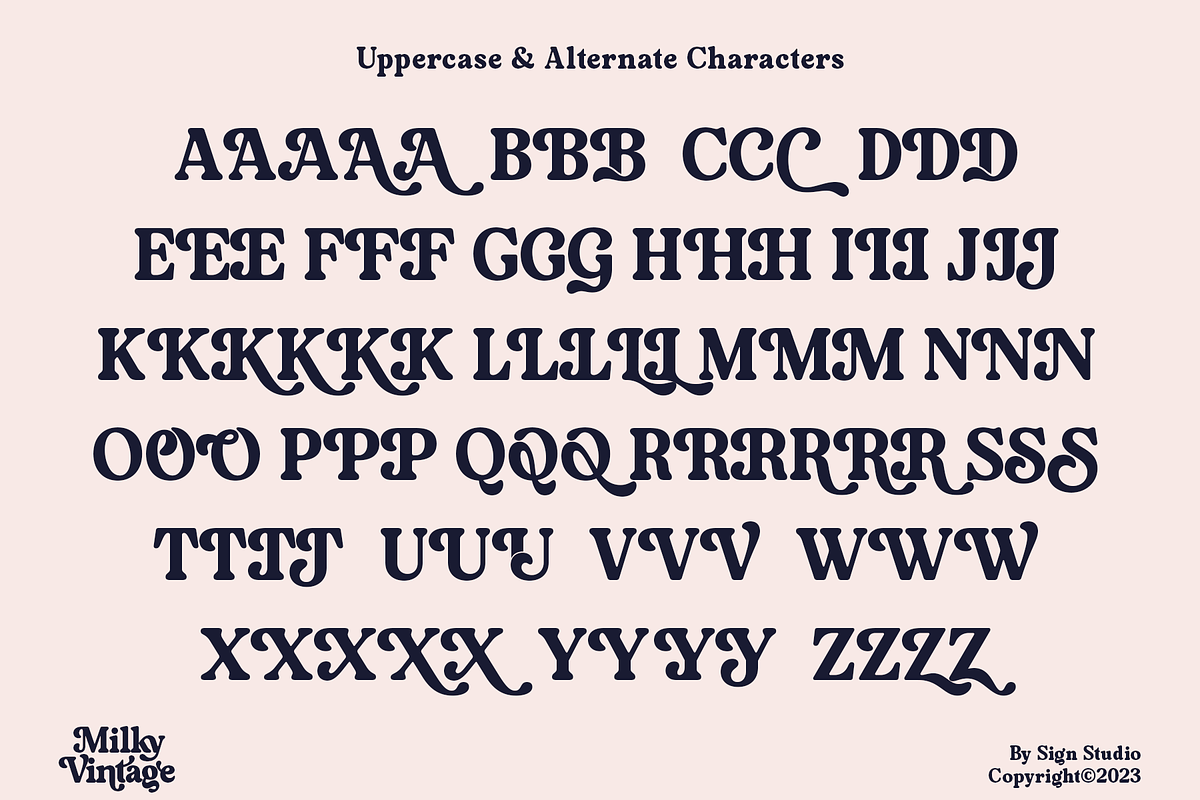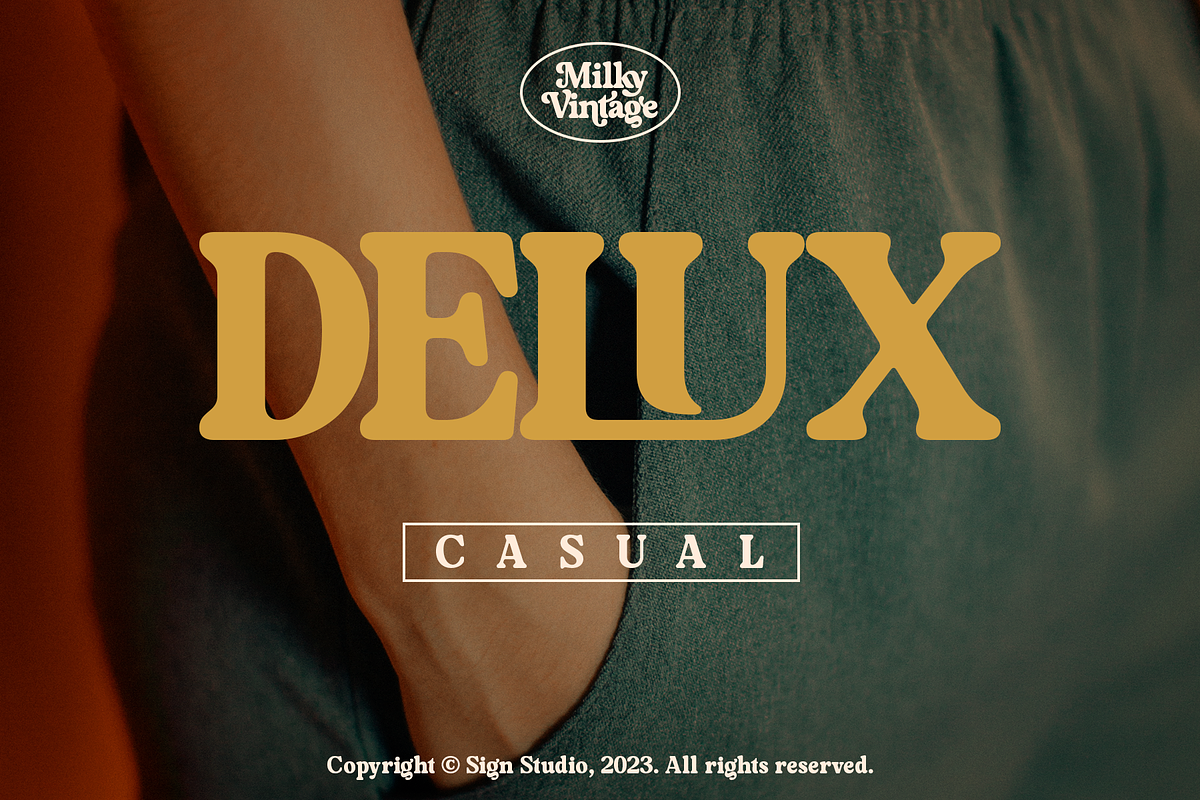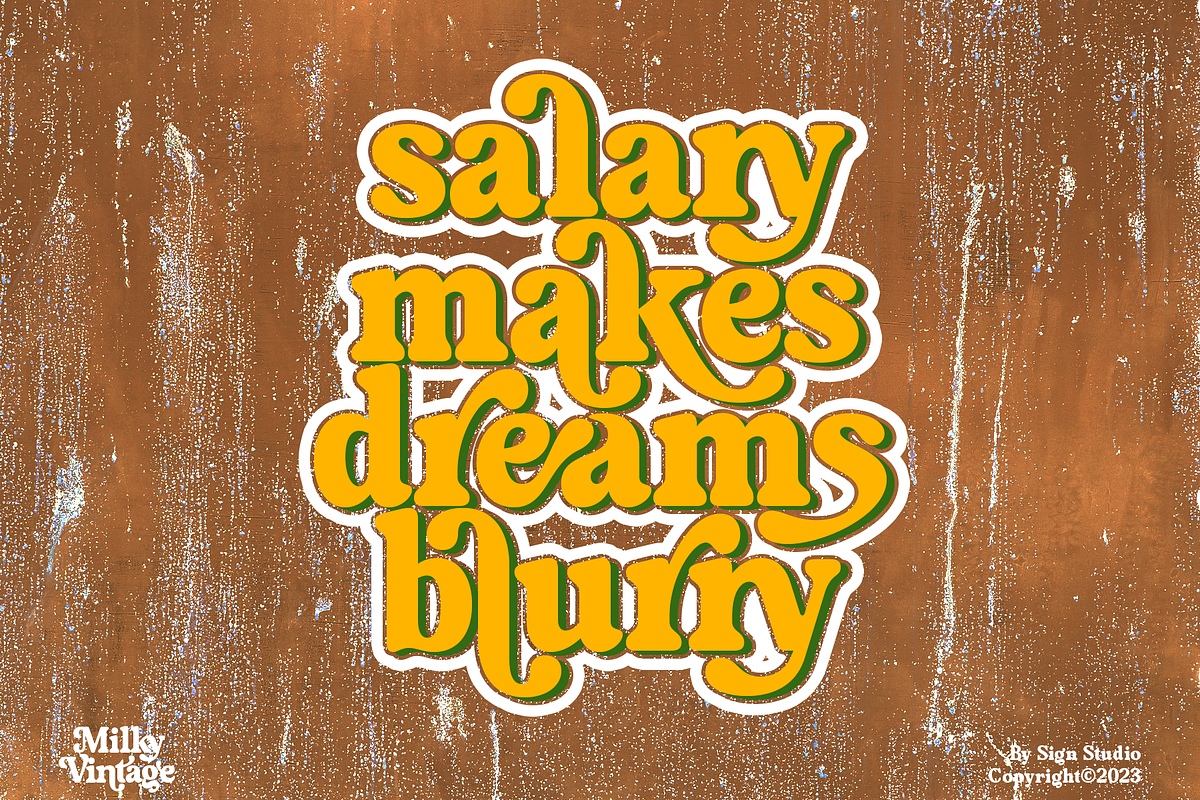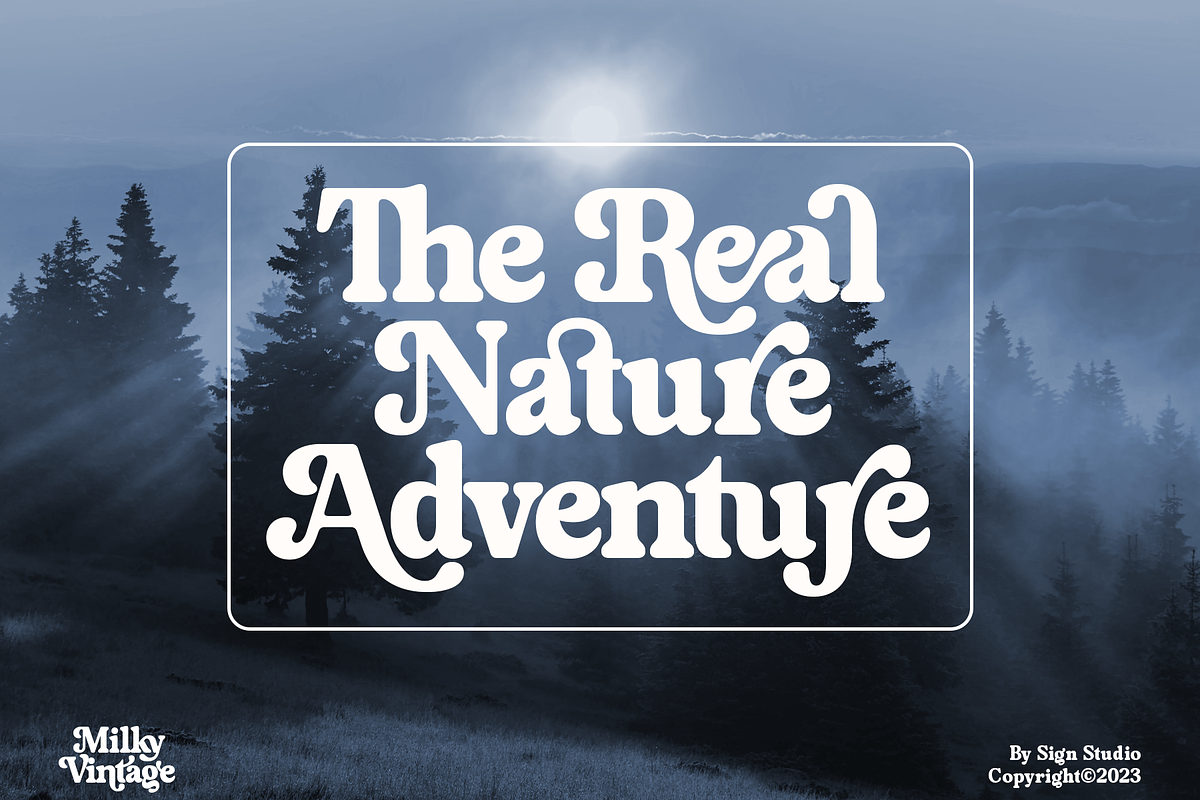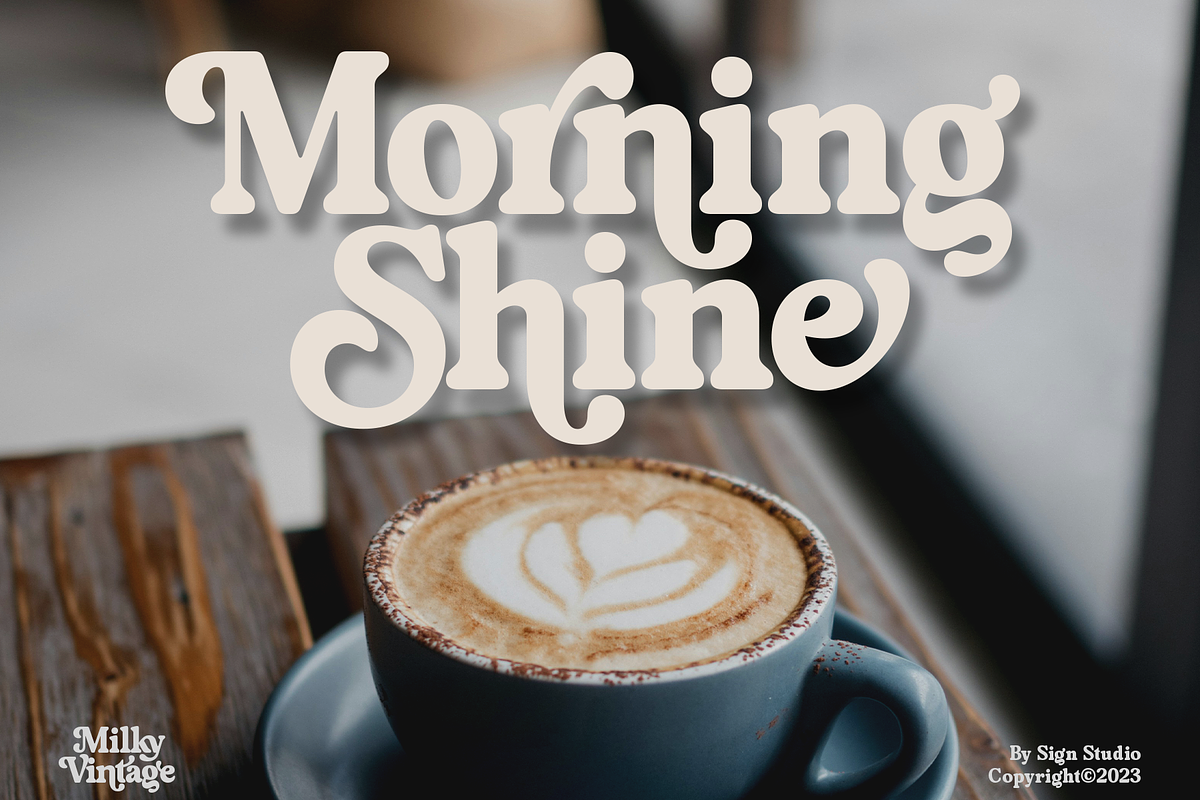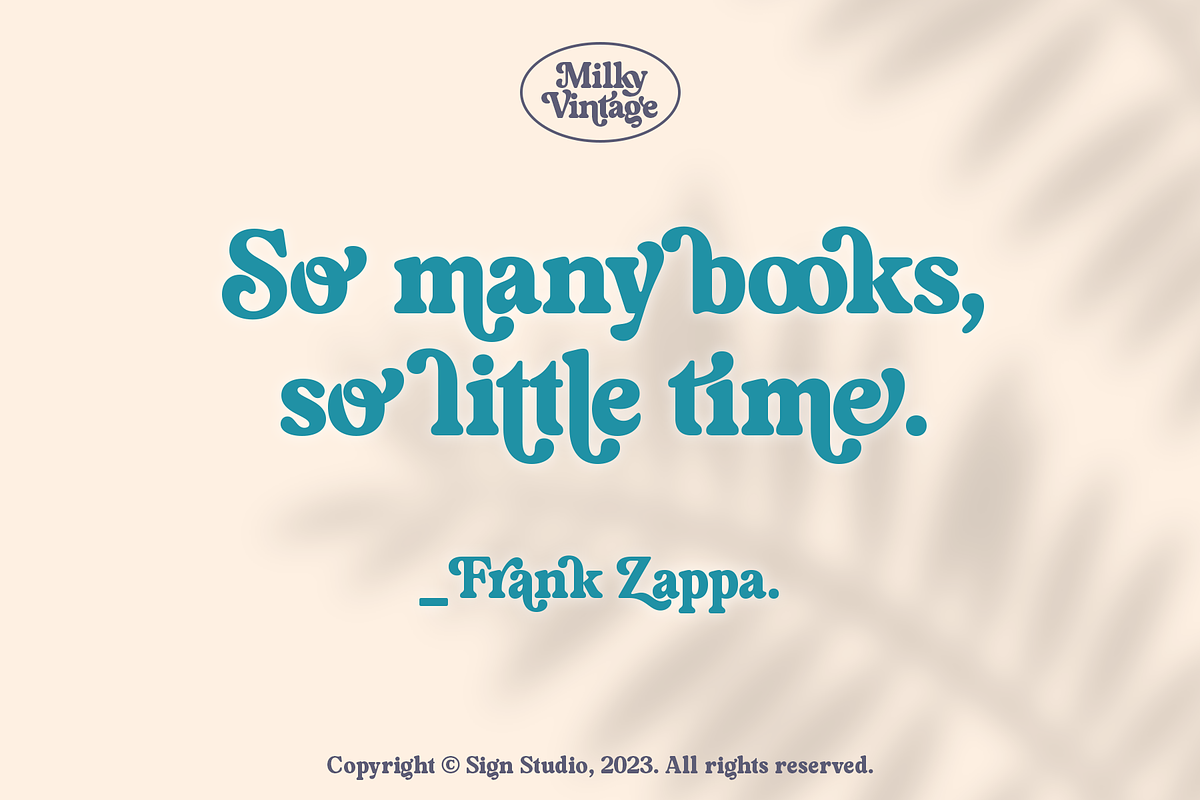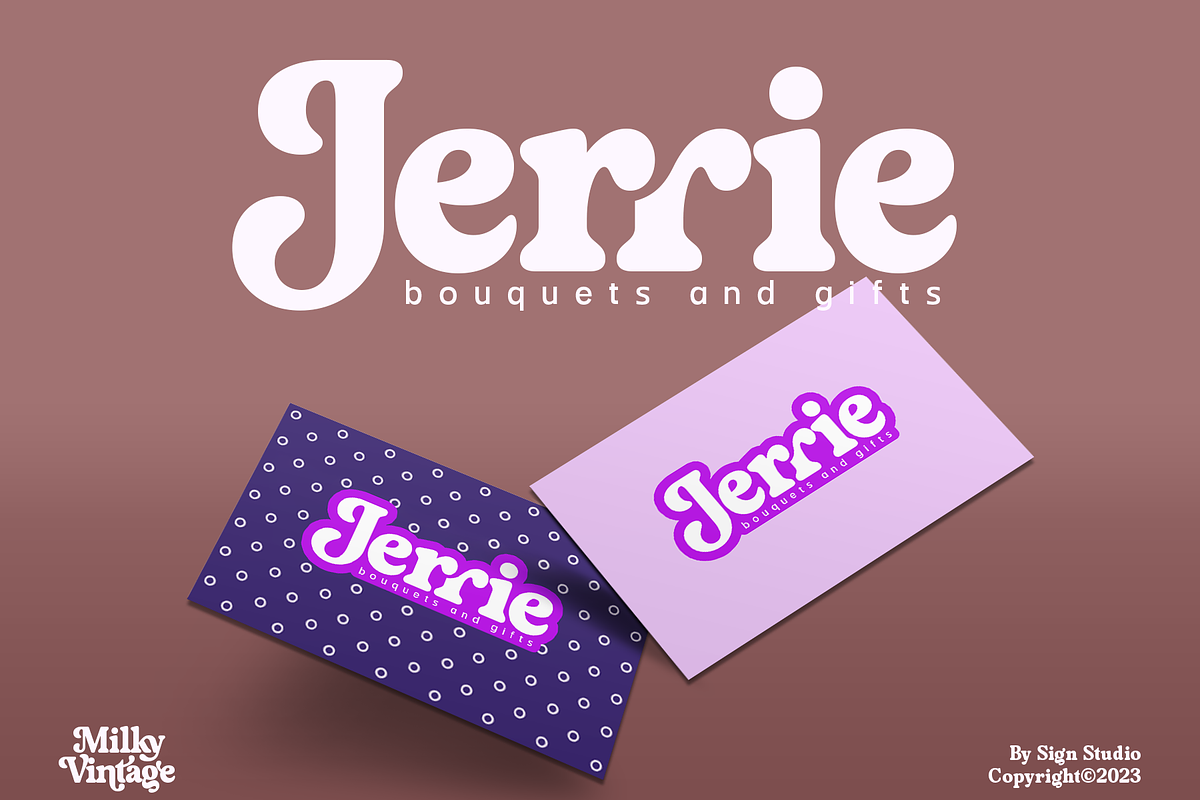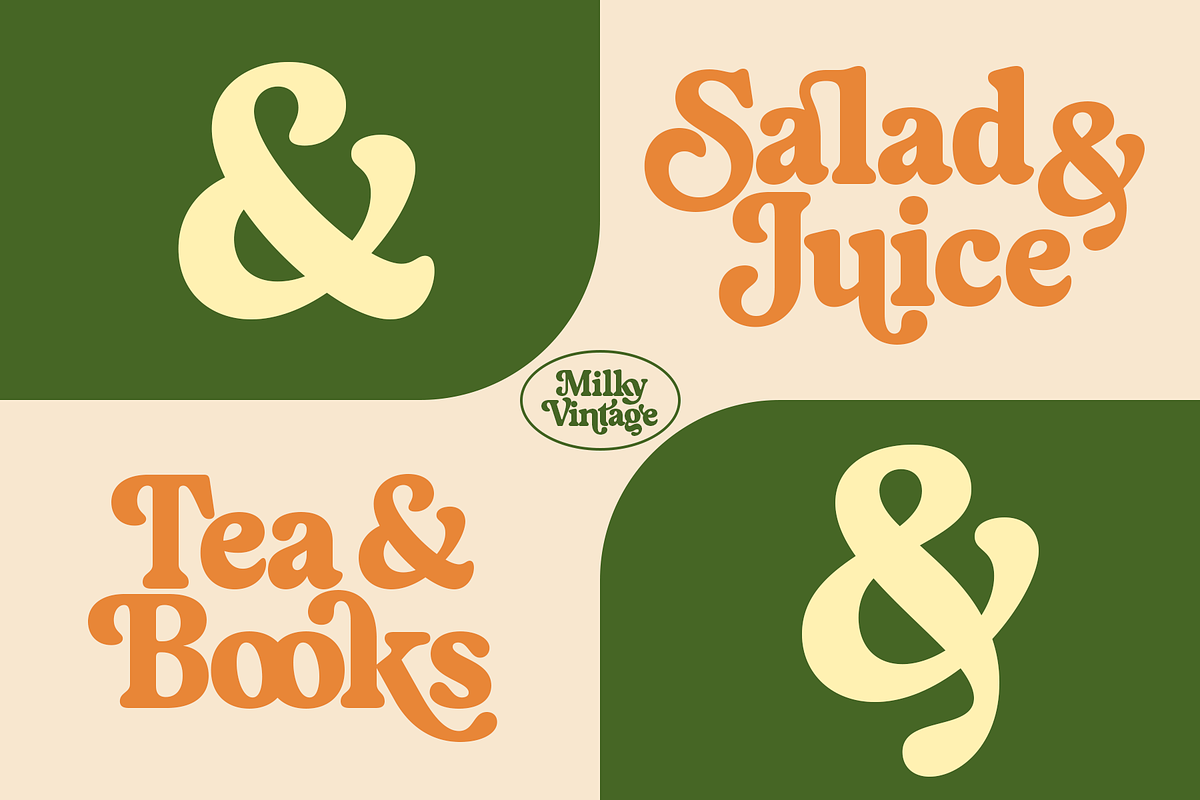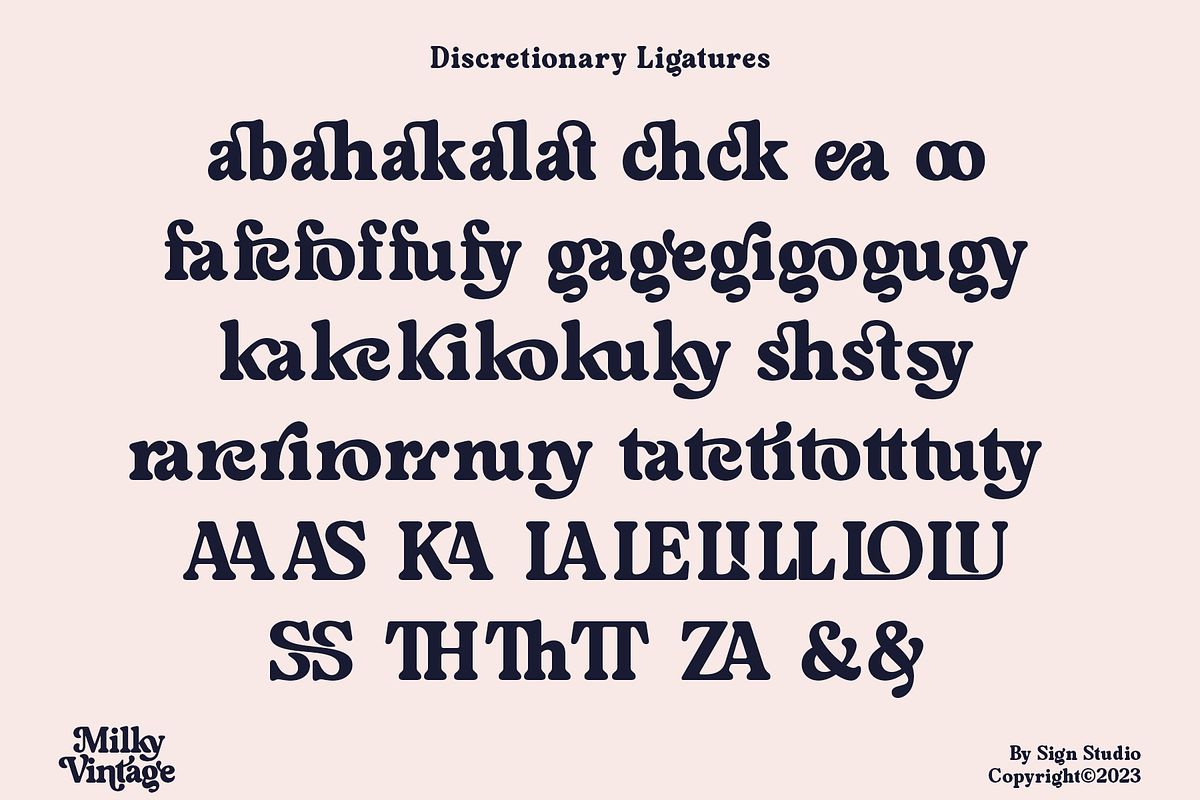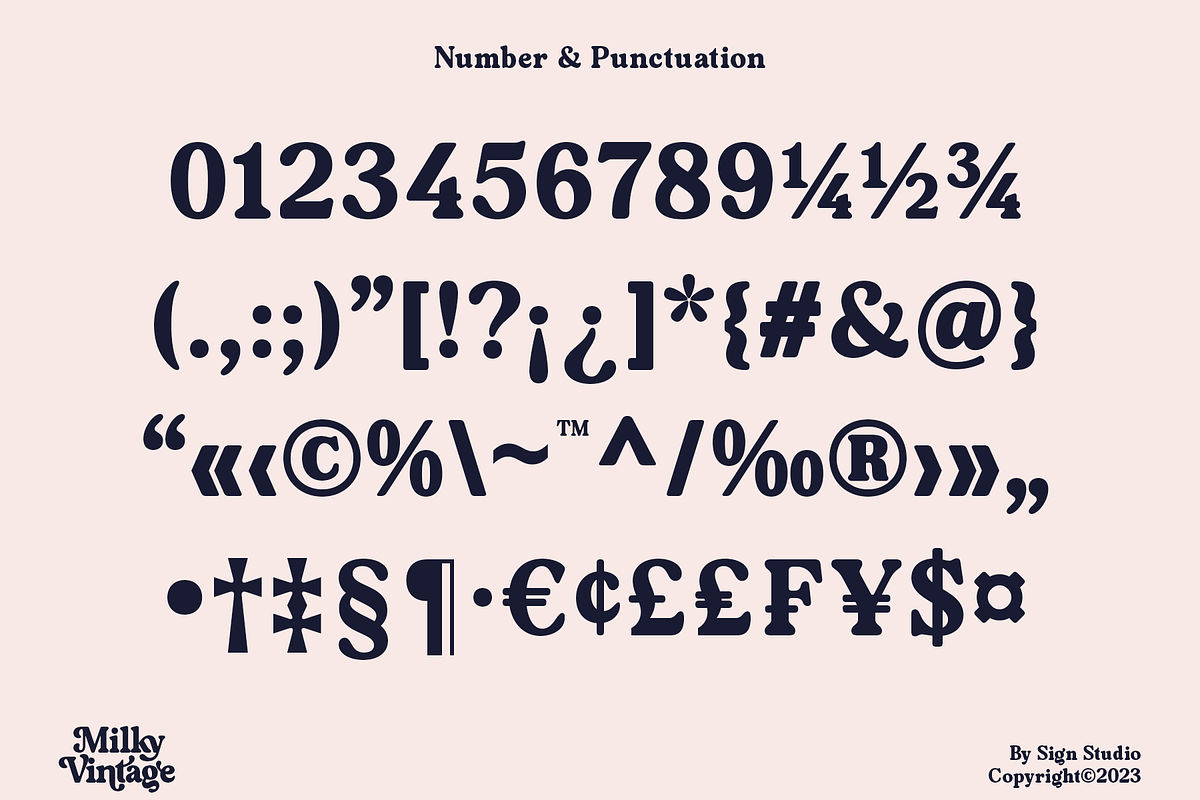
Milky Vintage
Milky Vintage has a sweet classic style so it is a suitable element for nostalgic themed designs. Equipped with alternative characters for Uppercase and Lowercase. Some Ligatures (Discretionary Ligatures) are also made to be neater and more beautiful. All characters have a PUA code so they can be easily accessed in most design editing software.